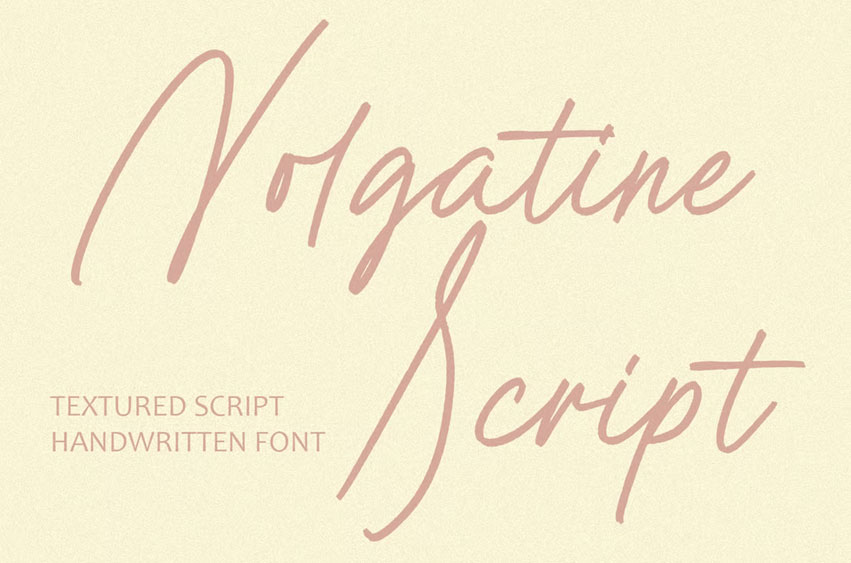
Nolgatine Script Font is a refined handwritten font with a natural, textured flow, perfect for adding a personal and sophisticated touch to your designs. Its graceful letterforms make it ideal for branding, invitations, social media posts, and editorial layouts, offering both charm and versatility for various creative projects.